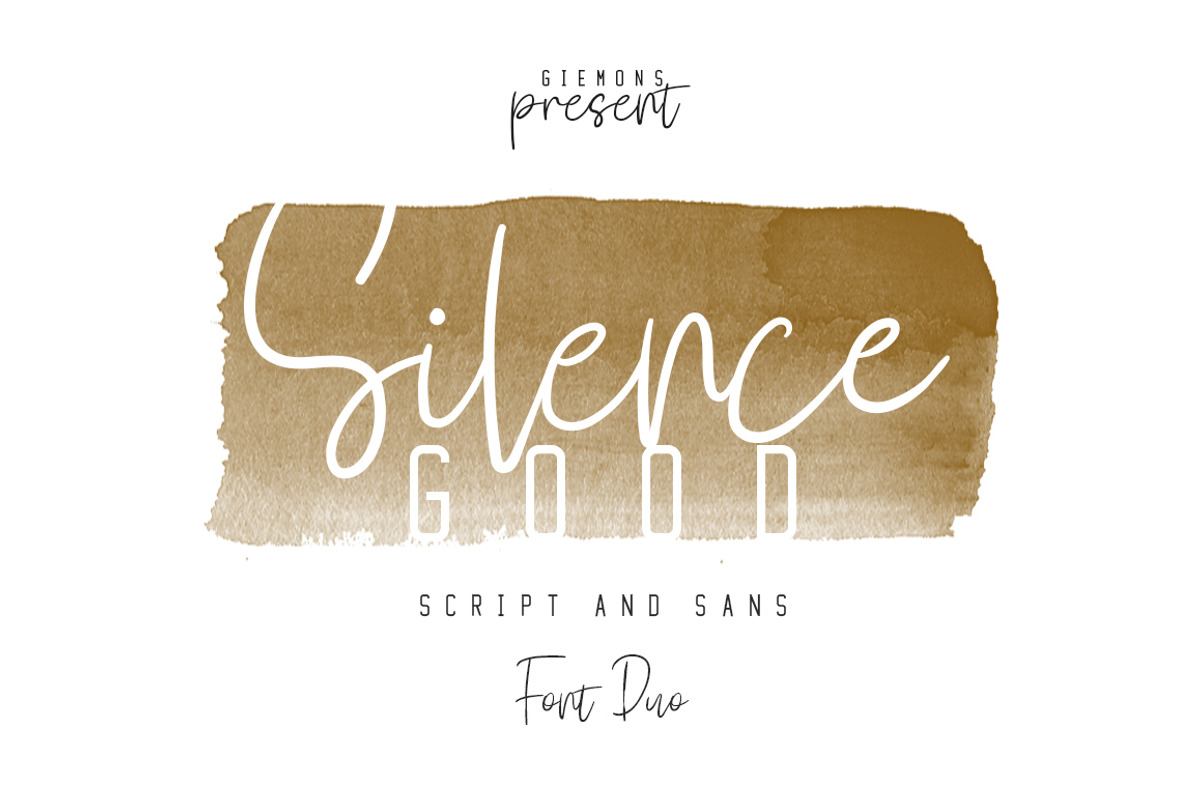
Silence Good Font Duo Free Download is a perfectly balanced typeface pair that blends minimalist elegance with handcrafted warmth. Featuring a clean, modern sans serif and a soft, flowing script, this duo is ideal for branding, logos, social media posts, product packaging, invitations, and lifestyle blogs.
The contrast between the structured sans and the expressive script gives your designs versatility and personality—great for combining professionalism with a personal touch. Whether you're building a modern identity or a cozy aesthetic, Silence Good Font Duo Free Download delivers harmony in every detail.
Use them together or separately to create visual interest and typographic rhythm in both print and digital formats.